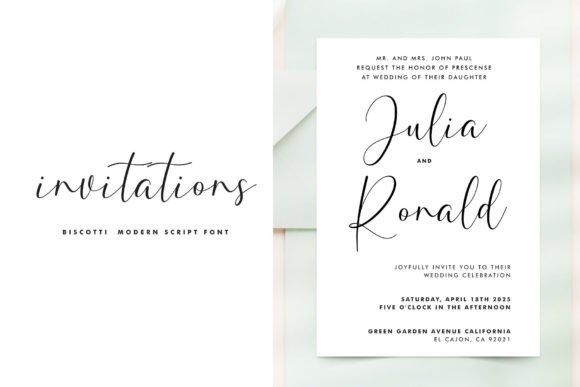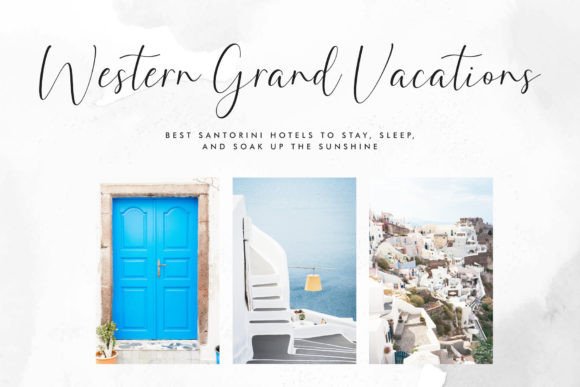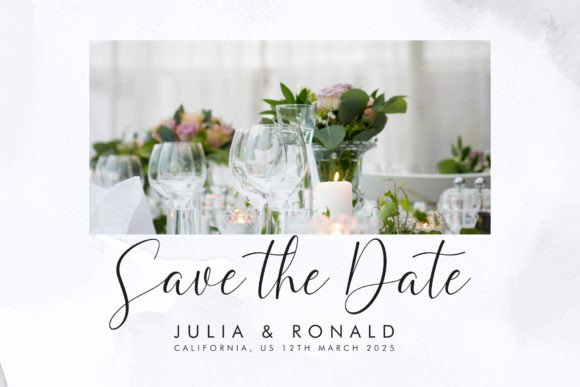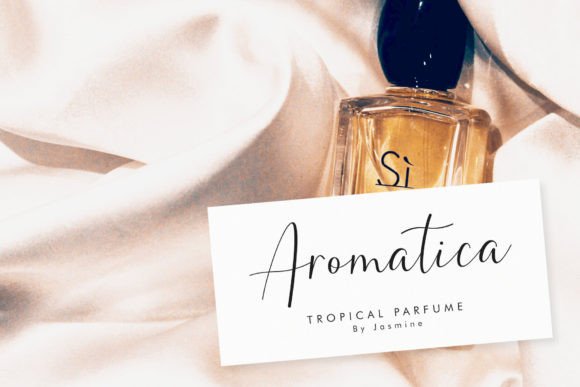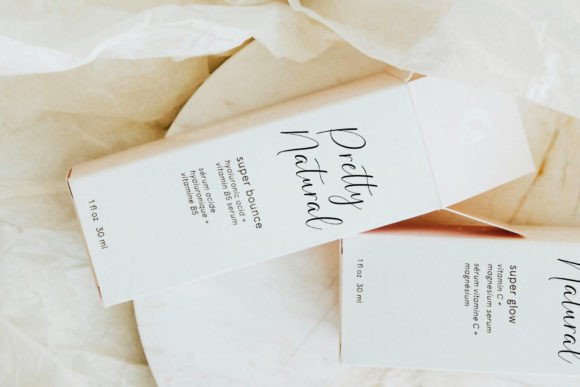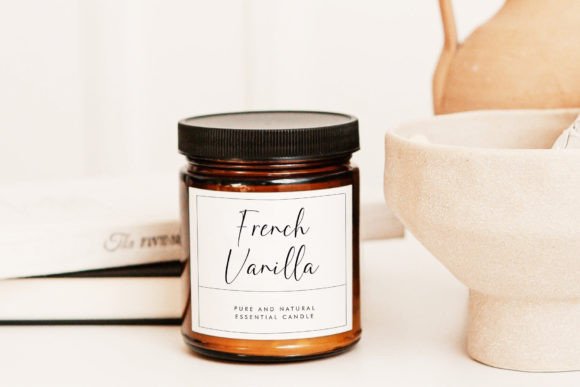
Biscotti Font: Elevate Your Designs with Elegance and Sophistication
Are you on the hunt for a font that exudes elegance, sophistication, and a touch of femininity? Look no further than the Biscotti Script font! This stunning modern script font is perfect for designers and crafters seeking to add a soft, romantic touch to their projects. In this article, we’ll dive into the world of Biscotti Font, exploring its features, uses, and benefits, as well as provide tips on how to make the most of this beautiful font.
Say Hello to Biscotti Script: A Modern Script Font
Biscotti Script is a very elegant, super casual, and realistic-looking modern script font. Its subtle charm makes it an ideal choice for a wide range of design projects, from wedding invitations and thank you cards to quotes, greeting cards, logos, branding, business cards, social media posts, magazines, and marketing materials. With Biscotti Script, you can add a touch of sophistication and whimsy to your designs, making them truly unforgettable.
Key Features of Biscotti Font
- Elegant and Sophisticated: Biscotti Script boasts a smooth, modern aesthetic that’s perfect for designs that require a touch of luxury and refinement.
- Super Casual: Despite its elegance, Biscotti Script remains approachable and casual, making it suitable for a wide range of design applications.
- Realistic-Looking: This font features a realistic, handwritten look that’s sure to capture the hearts of your audience.
- Feminine Feel: Biscotti Script’s soft, flowing lines add a touch of femininity to your designs, making it perfect for projects that require a delicate, romantic touch.
Uses for Biscotti Font
Biscotti Script is an incredibly versatile font that can be used in a variety of design projects, including:
- Wedding Invitations: Add a touch of elegance and sophistication to your wedding invitations, save-the-dates, and thank you cards.
- Branding and Logos: Use Biscotti Script to create stunning logos, business cards, and marketing materials that reflect your brand’s personality.
- Social Media Posts: Elevate your social media game with Biscotti Script, adding a touch of whimsy and sophistication to your posts.
- Magazines and Quotes: Use Biscotti Script to add a touch of elegance to your magazine layouts, quotes, and inspirational sayings.
- Greeting Cards: Create beautiful greeting cards for special occasions, such as birthdays, anniversaries, and holidays.
Tips for Using Biscotti Font
To get the most out of Biscotti Script, follow these tips:
- Pair with Contrasting Fonts: Combine Biscotti Script with bold, sans-serif fonts to create visual interest and contrast.
- Experiment with Colors: Try pairing Biscotti Script with soft, pastel colors or rich, jewel-toned hues to add depth and dimension to your designs.
- Play with Ligatures: Take advantage of Biscotti Script’s ligatures to add a touch of whimsy and elegance to your designs.
In conclusion, Biscotti Script is a stunning modern script font that’s perfect for designers and crafters seeking to add a touch of elegance, sophistication, and femininity to their projects. With its smooth, realistic look and versatile uses, Biscotti Script is sure to become a favorite in your font collection. So why wait? Fall in love with Biscotti Script and use it to create spectacular designs that leave a lasting impression!